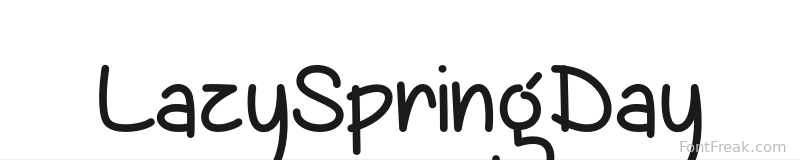
Lazy Spring Day
LazySpringDay
Lazy Spring Day is a charming display font designed by Misti Hammers, embodying a carefree and whimsical spirit reminiscent of leisurely afternoons in bloom. This font falls into the handwritten category, characterized by its playful and organic strokes that convey a sense of ease and warmth. The stroke weight is moderate, offering a balanced contrast that enhances legibility while adding a friendly touch. The letters feature a delightful irregularity typical of handwritten styles, making each word feel personal and inviting. The spacing is well-considered, allowing for clear readability while maintaining an airy feel.
This font is perfect for a variety of creative projects. It shines in wedding invitations, where its casual elegance can evoke feelings of joy and love. Additionally, Lazy Spring Day is an excellent choice for restaurant menus, especially those aiming for a cozy, inviting atmosphere. It can also elevate greeting cards, capturing the essence of heartfelt messages, and can be effectively used in social media graphics to attract a youthful audience. Small business owners looking to create a brand identity that resonates with their customers will find this font particularly appealing.
Targeting graphic designers, small business owners, and content creators alike, this font offers versatility and charm. The Lazy Spring Day font free download allows users to incorporate this delightful typeface into their projects without the constraints of licensing fees. What truly sets Lazy Spring Day apart is its ability to evoke a sense of nostalgia and warmth, making it a perfect choice for projects that aim to connect on a personal level. Its unique character and visual appeal make it a valuable addition to any designer’s toolkit, ensuring that your work stands out in a crowded marketplace.